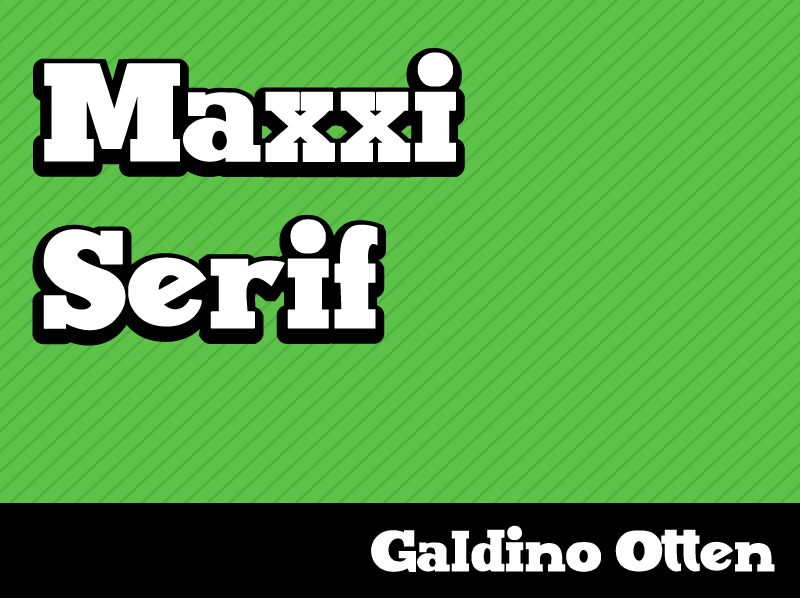
Maxxi Serif Bold by Galdino Otten is a free heavy serif display font with broad, assertive forms. Its thick strokes change little in width, and the blunt serifs lock each letter into a dense silhouette. Rounded lowercase shapes keep the weight from looking rigid.
Editorial covers and food packaging can both use its solid, playful construction, whether the subject is loud culture or an indulgent product. It is especially convincing on music posters. Its oversized curves and squared serifs can echo cut-paper illustration on festival merchandise and event graphics.